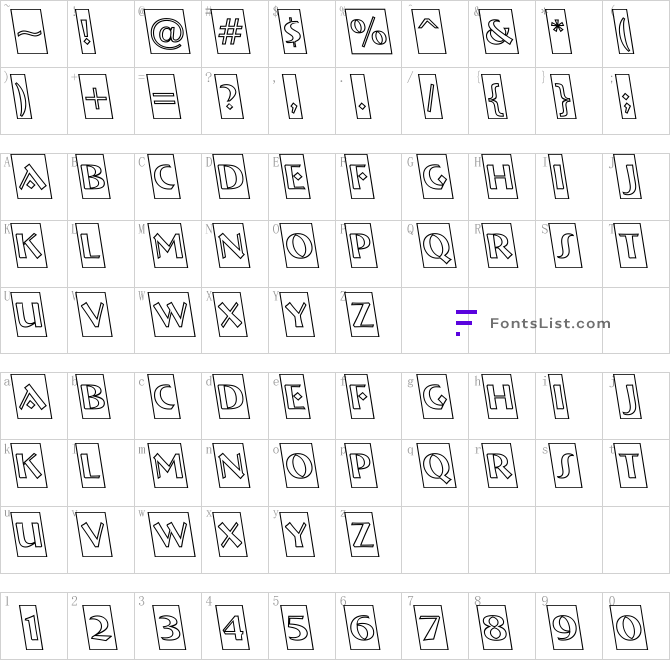
a_BremenCmOtlRevObl.ttf is a very beautiful artistic font, a_BremenCmOtlRevObl.ttf is widely used in the design and printing of various books and pictures,a_BremenCmOtlRevObl.ttf has a strong visual impact,a_BremenCmOtlRevObl.ttf is a commonly used font in newspapers, magazines and books, and is used in posters, e-commerce Poster design, store design, logo design, font design and other fields.a_BremenCmOtlRevObl.